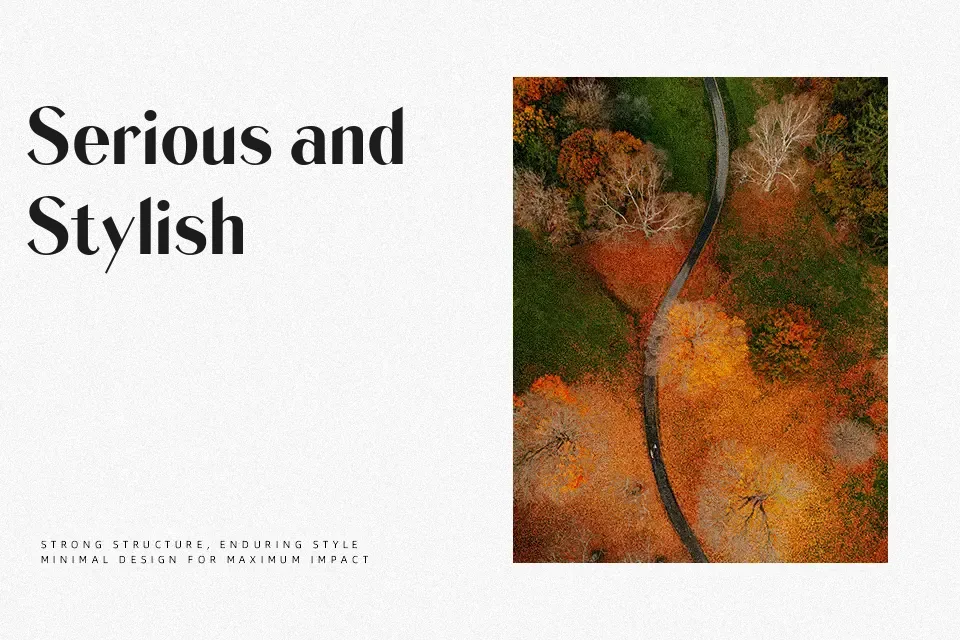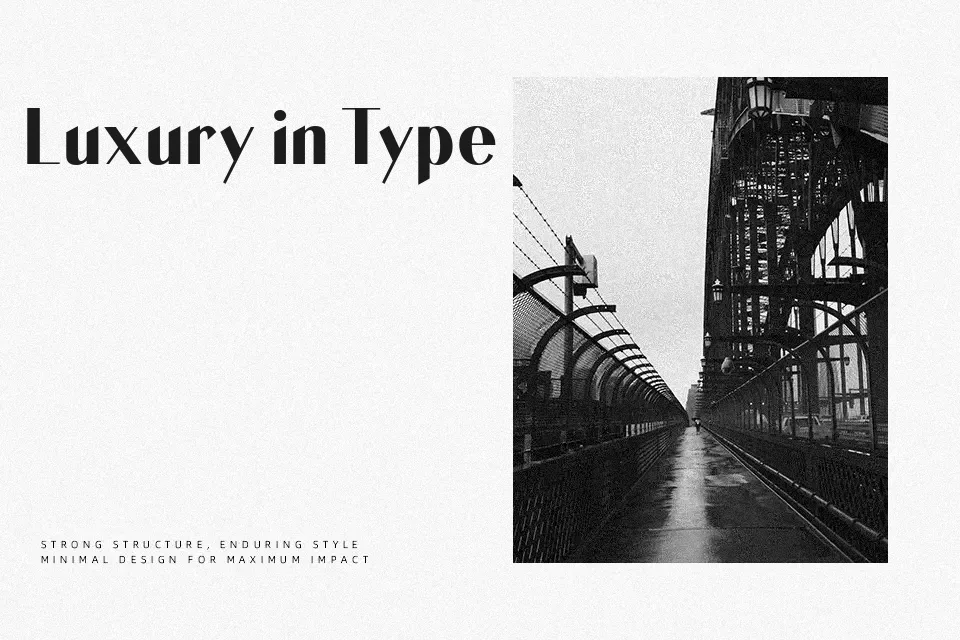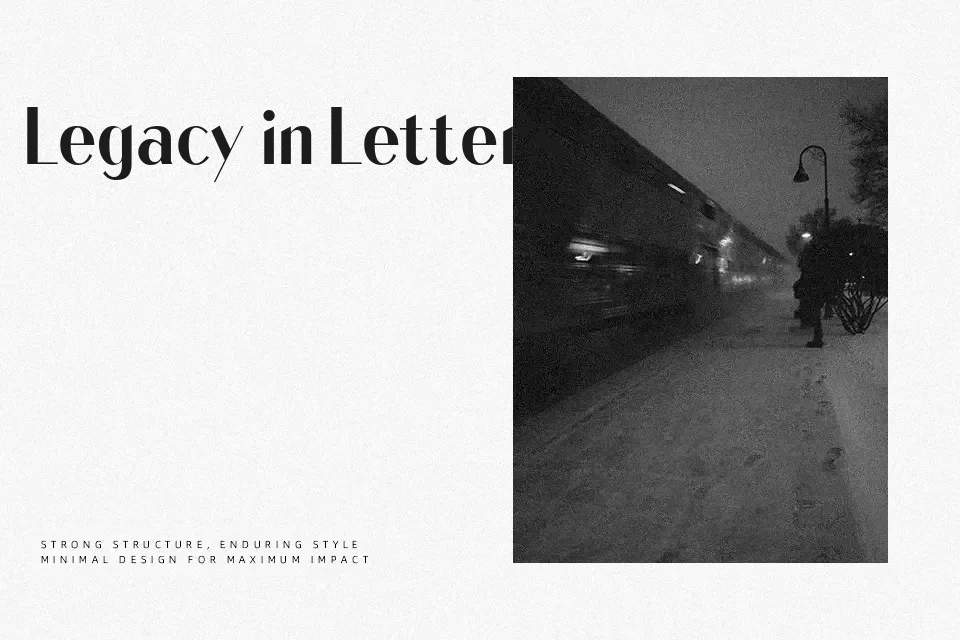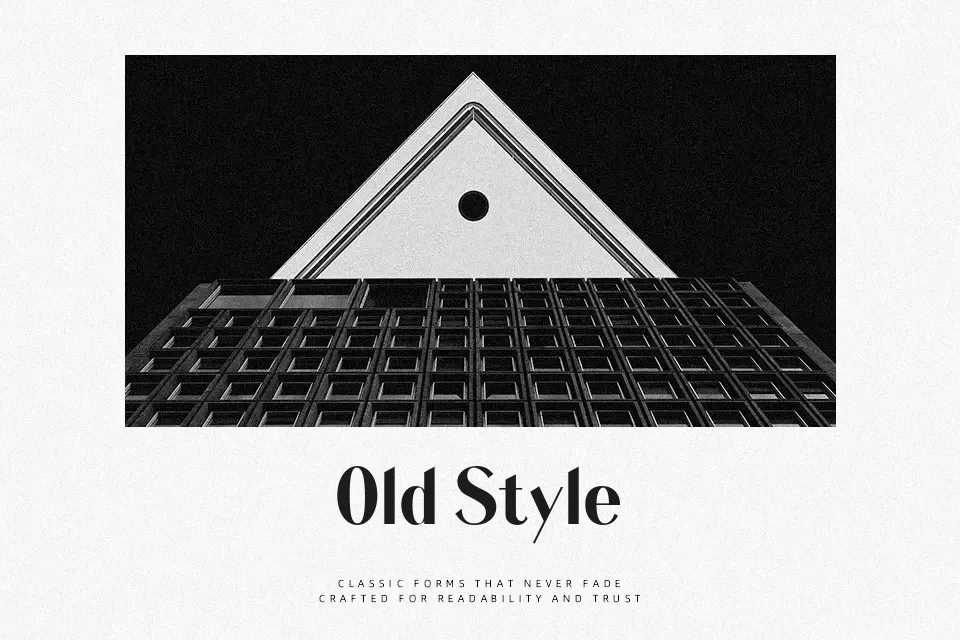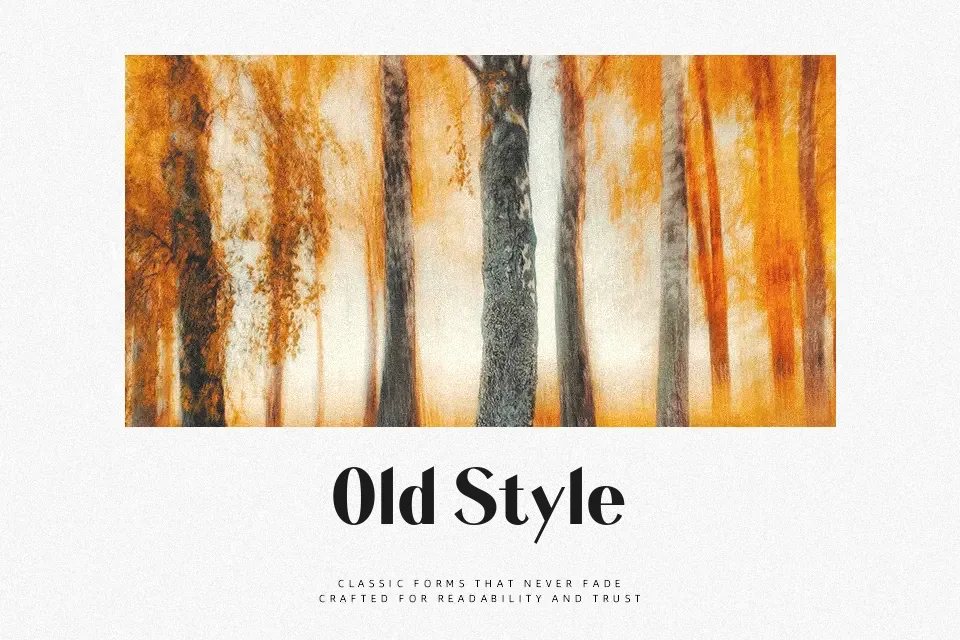
Quentell CF Font
Designed by Chuck's Fonts
The Quentell CF Font presents a robust display aesthetic built upon a foundation of heavily contrasting thick and thin strokes. The letterforms carry a pronounced vintage structure, balanced by open counters and sharply defined serif details that give the design a formal yet character-rich presence. Its proportions feel strong and deliberate, allowing for tight, impactful typesetting in larger layout applications. The spacing helps maintain clarity in large headlines, making it highly effective for prominent branding and poster work. However, because the dense forms and idiosyncratic stroke variations reduce comfort during extended reading, it is less suitable for long paragraphs. Overall, the heavy weight and dynamic contrast deliver excellent visual impact when applied to bold, retro-modern graphic layouts.
vintage product packaging
retro advertising headlines
bold logo designs
Perfect for advertising, branding, and headline, with a bold and decorative style.